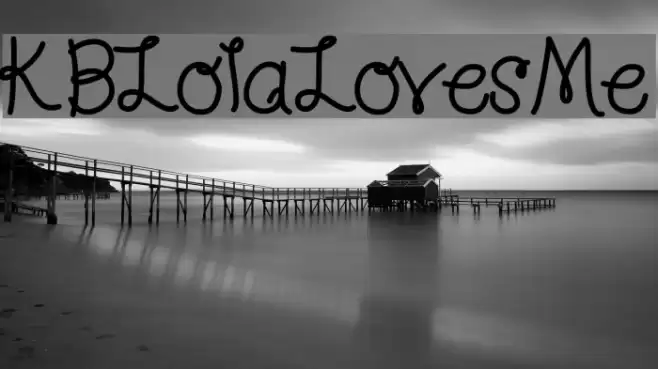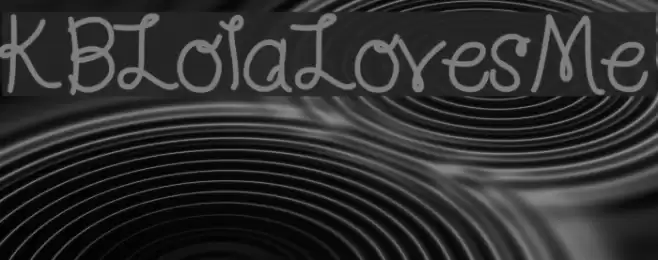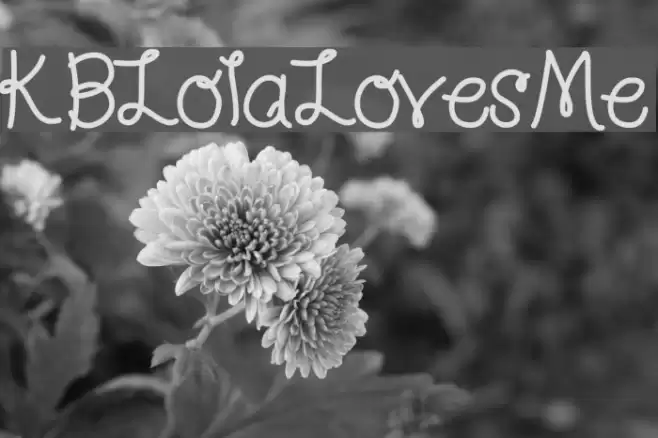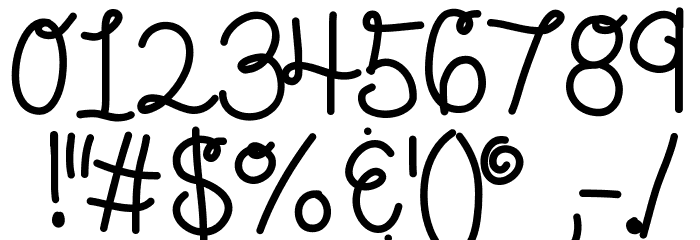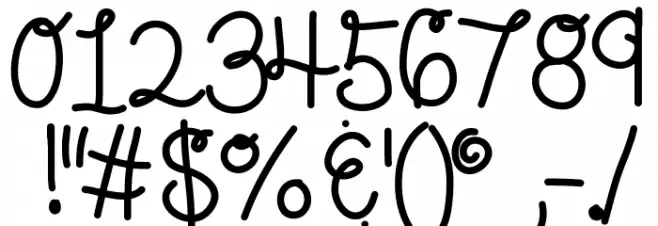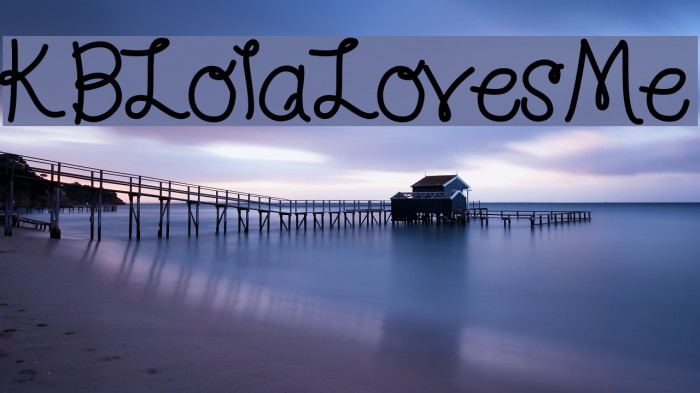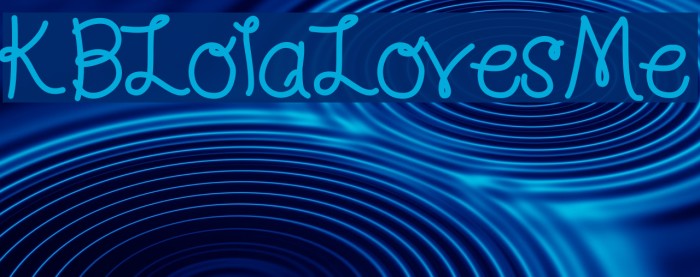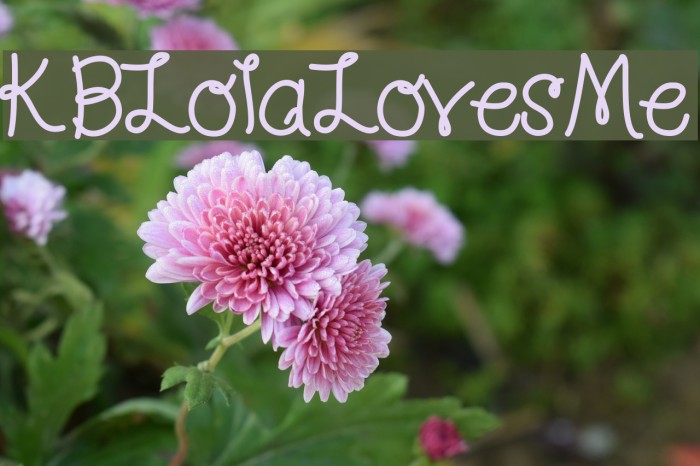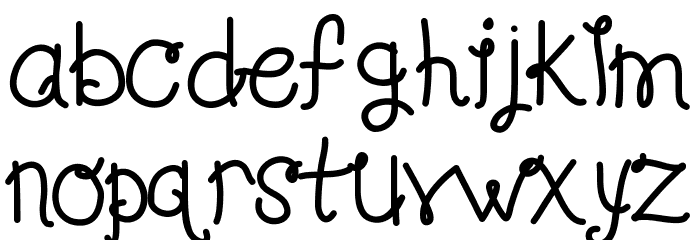
KBLolaLovesMe Font
KBLolaLovesMe Description
This playful and whimsical font features a handwritten style with a unique twist. Each character is crafted with a sense of fun, incorporating loops and curls that give it a lively personality. The uppercase letters are bold and slightly irregular, while the lowercase letters maintain a consistent flow with rounded edges. Numbers and special characters follow the same playful theme, making them stand out with distinctive shapes. The overall design is reminiscent of casual handwriting, perfect for adding a personal touch to any project.
A playful, handwritten font with loops and curls, exuding a lively personality.
- Proposed Projects: Ideal for children's books, greeting cards, playful branding, or any project requiring a personal, whimsical touch.
- Category: Handwritten
- Overall Style: Playful
- Use Case: Logos, Headlines, Greeting Cards